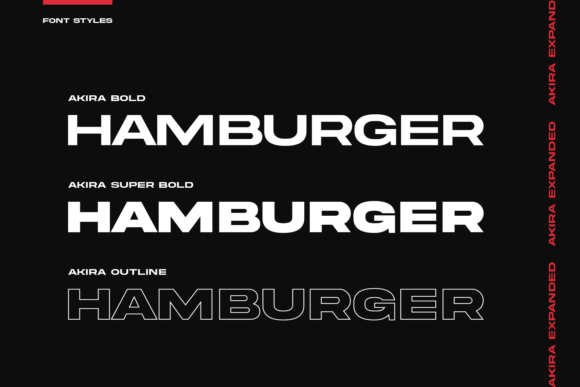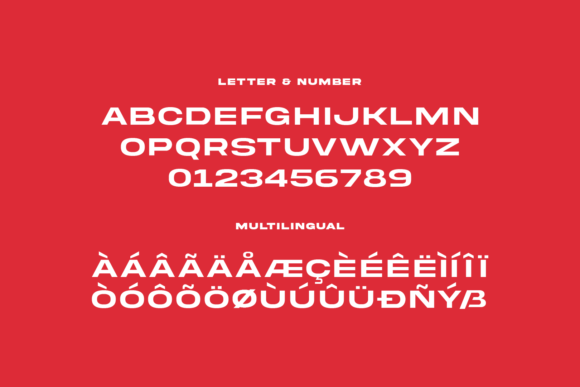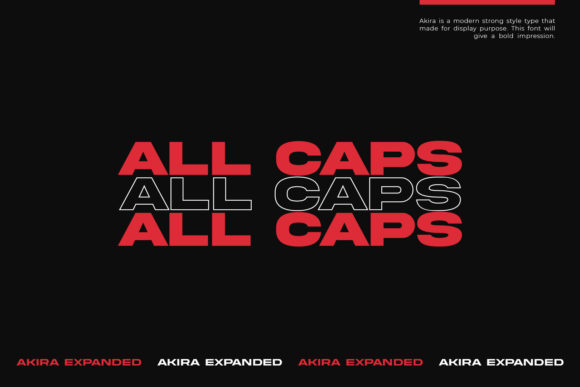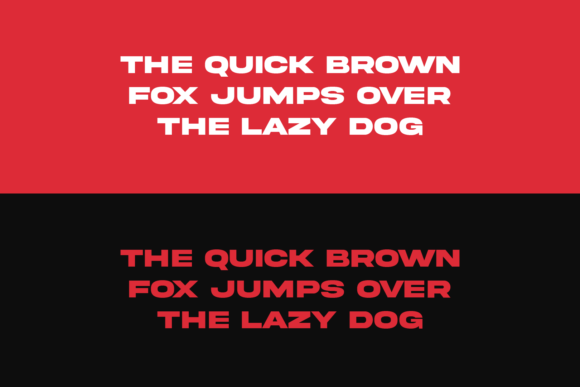
Akira Expanded Font: Elevate Your Designs with a Strong and Modern Sans Serif
In the world of typography, a font can make or break a design. Akira Expanded is a robust and contemporary sans serif font that has been gaining attention among designers and crafters. This versatile font comes in three distinct styles, allowing you to mix and match to achieve a unique look that elevates your project. In this article, we’ll explore the features and benefits of Akira Expanded, and why it’s an excellent choice for your next design endeavor.
A Modern Sans Serif Font
Akira Expanded boasts a clean and modern aesthetic, making it perfect for a wide range of applications. Its sans serif design ensures that your text remains clear and legible, even at smaller sizes. The font’s strong and sturdy appearance makes it an excellent choice for headlines, titles, and other display text. However, its versatility also allows it to be used for blocks of text, providing a professional and cohesive look.
Three Styles to Mix and Match
One of the standout features of Akira Expanded is its availability in three different styles. This allows you to experiment with various combinations to achieve the perfect look for your project. Whether you’re designing a logo, brochure, or website, you can choose from the three styles to create visual interest and hierarchy. The ability to mix and match styles also enables you to add nuance and depth to your design, making it more engaging and dynamic.
Ideal for Headlines and Text
Akira Expanded shines when used for headlines of all sizes. Its bold and modern appearance demands attention, making it perfect for titles, headings, and other display text. Additionally, the font’s legibility and versatility make it suitable for blocks of text with varying font sizes. This means you can use Akira Expanded for both large-scale headings and smaller body text, achieving a cohesive look throughout your design.
Multipurpose and Adaptable
Whether you’re designing for web, print, or other mediums, Akira Expanded is an excellent choice. Its adaptability makes it suitable for various applications, including:
- Web design: Use Akira Expanded for website headers, titles, and body text to create a professional and modern online presence.
- Print design: Akira Expanded is perfect for brochures, posters, business cards, and other print materials where a strong and legible font is essential.
- Motion graphics: The font’s clean and modern design makes it an excellent choice for video titles, subtitles, and other motion graphics.
Why Choose Akira Expanded?
With so many fonts available, why choose Akira Expanded? Here are a few compelling reasons:
- Uniqueness: Akira Expanded’s modern sans serif design and three distinct styles set it apart from other fonts.
- Legibility: The font’s clean and sturdy appearance ensures that your text remains clear and legible, even at smaller sizes.
- Versatility: Akira Expanded can be used for a wide range of applications, from web and print to motion graphics.
- Ease of use: The font’s simplicity and consistency make it easy to use and pair with other fonts.
Akira Expanded is a powerful and modern sans serif font that can elevate your designs to new heights. Its three distinct styles, versatility, and adaptability make it an excellent choice for designers and crafters. Whether you’re working on a web project, print material, or motion graphics, Akira Expanded is sure to make a lasting impression. With its unique blend of style and functionality, Akira Expanded is a font that’s worth exploring.